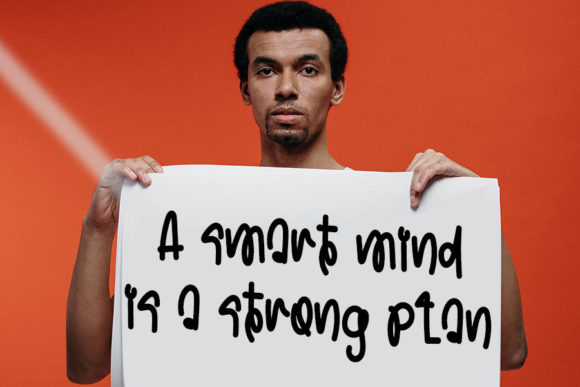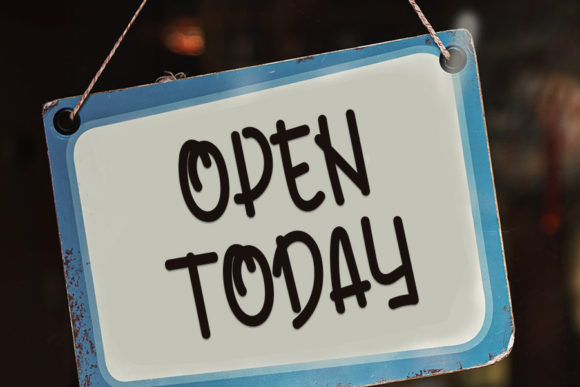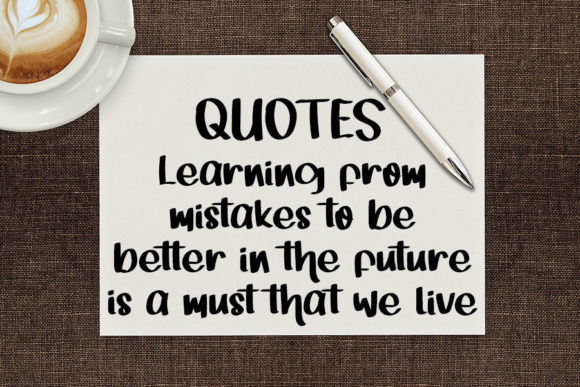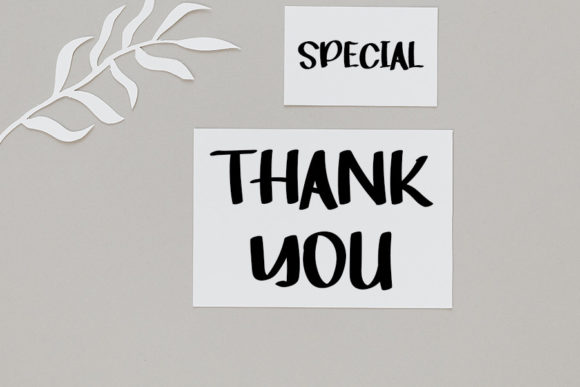
Dismey Font
About Dismey Font
Dismey is a quirky and whimsical handwritten font. No matter the topic, this font will be an incredible asset to your fonts’ library, as it has the potential to elevate any creation.